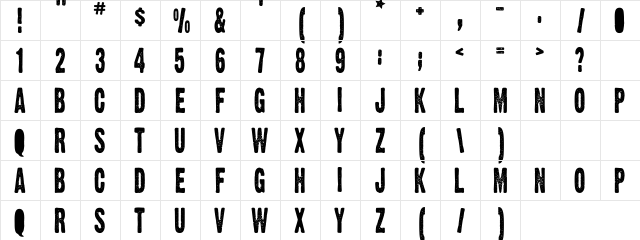
VirginiaPlain Regular
Design Context for VirginiaPlain Typeface
VirginiaPlain offers clean, dependable letterforms without strong stylistic allegiance, making it a practical choice for designers who need flexibility.